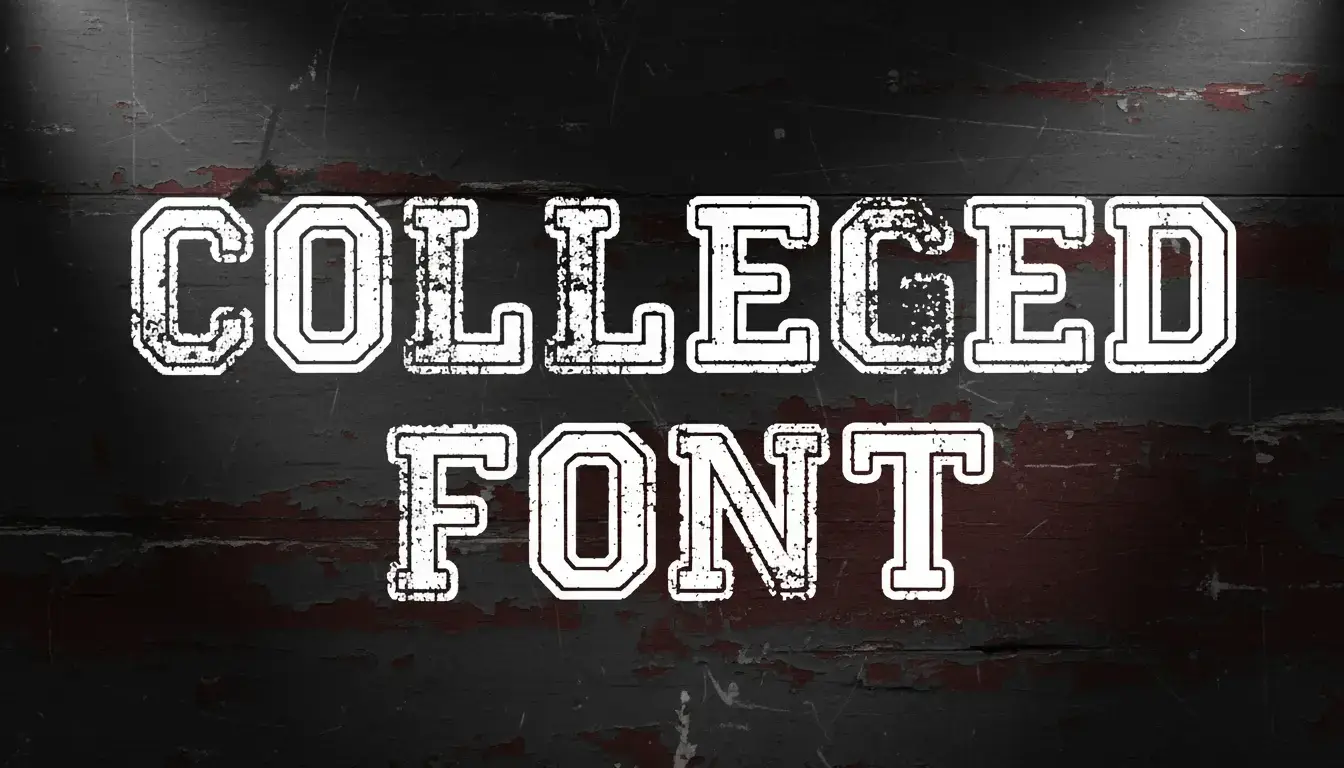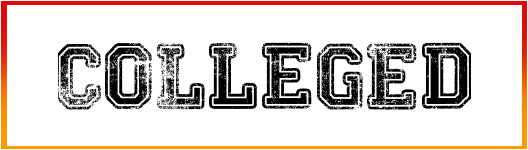
Colleged Font
Colleged
Colleged is a fancy font created by IMAGEX. Bold and full of character, it's built to stand out rather than blend in. You can download it for free and test it with your own words in the preview above.
What You Can Type With Colleged
With complete upper and lowercase letters and all ten digits, Colleged is ready for real wording, not just a single headline. Common punctuation such as &, !, ? and $ is included as well. It doesn't include accented letters such as é or ñ, which makes it an English-only font.
Where Colleged Works Best
Designers usually reach for fonts like Colleged when they're making posters, logos and eye-catching headlines. Use it for one standout word or headline and let simpler fonts handle the rest.
Does Colleged support accented letters?
No. Colleged has no accented letters such as é, ñ or ü, so it's best for English text.